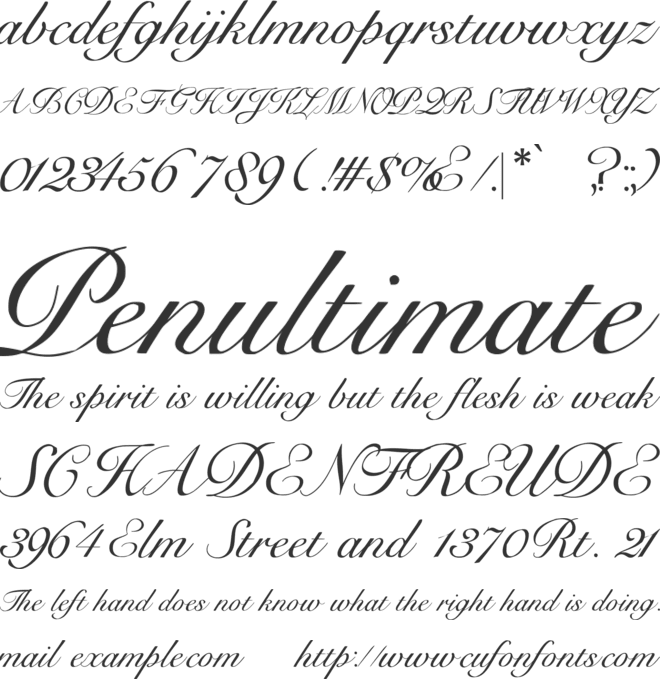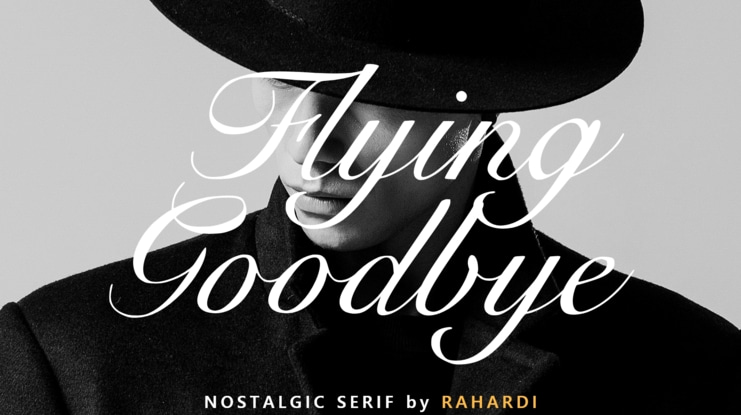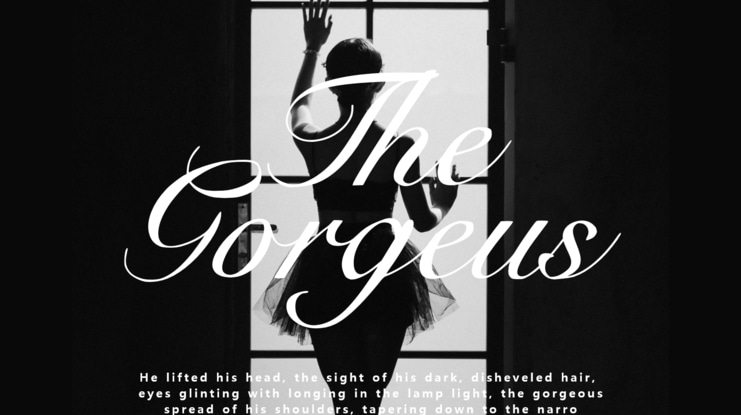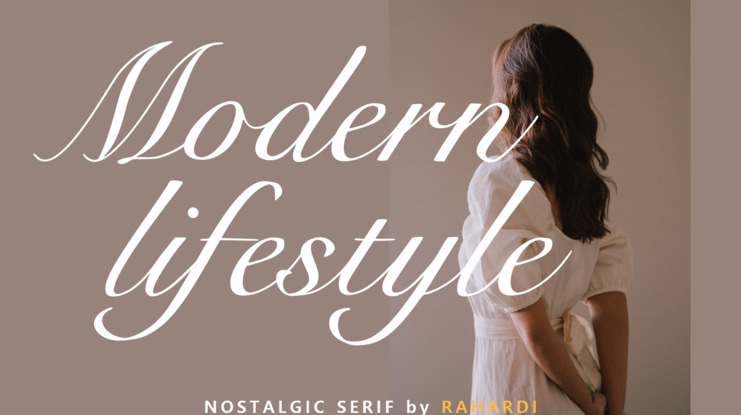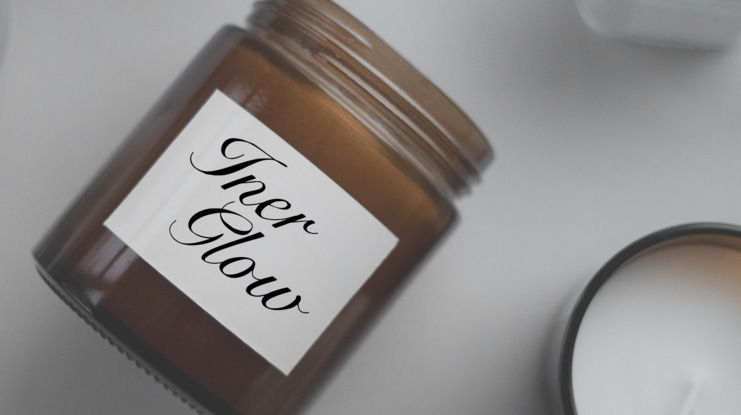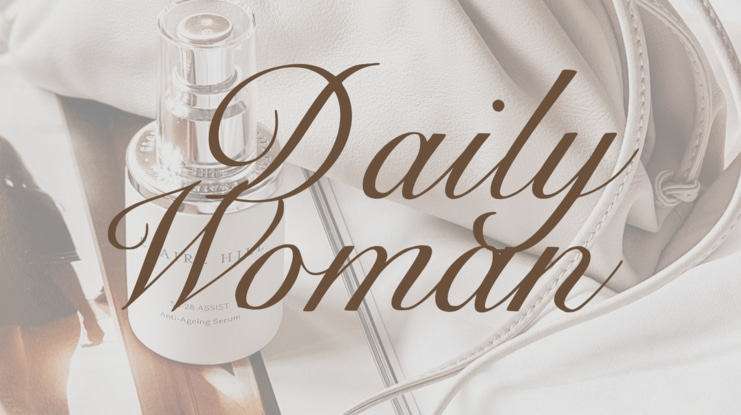
Flying Goodbye fonts Font
Flying Godbye is a beautiful and sexy nostalgic uppercase and lowercase typography, Available in Uppercase Lowercase and multilingual characters, Flying Godbye will represent your memories from the past, suitable for various design purposes such as magazine covers, cosmetic brands, beautiful quotes or business cards and much more.